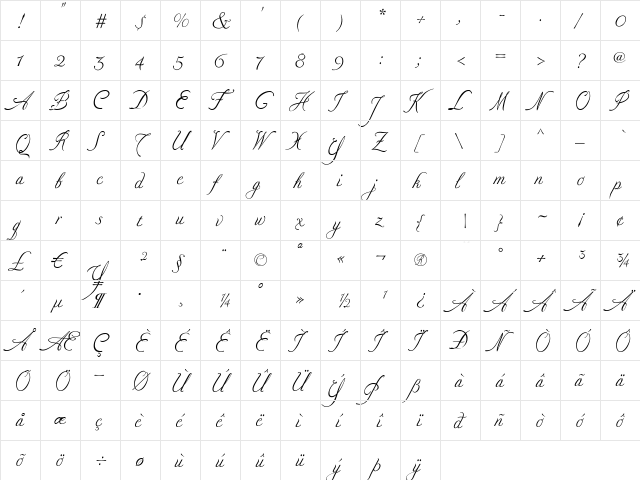
NadineScriptExtra Regular
Design Context for NadineScriptExtra Typeface
NadineScriptExtra brings a calligraphic fluidity to the page — its connecting strokes and expressive curves give it an unmistakably human quality.
Font Pairing: Combine NadineScriptExtra with a simple geometric sans for maximum contrast — the tension between flowing curves and clean structure is a classic typographic pairing.
Pro Tip: Pair NadineScriptExtra with a clean sans-serif for supporting text. The contrast between fluid script and geometric structure creates an elegant typographic hierarchy.